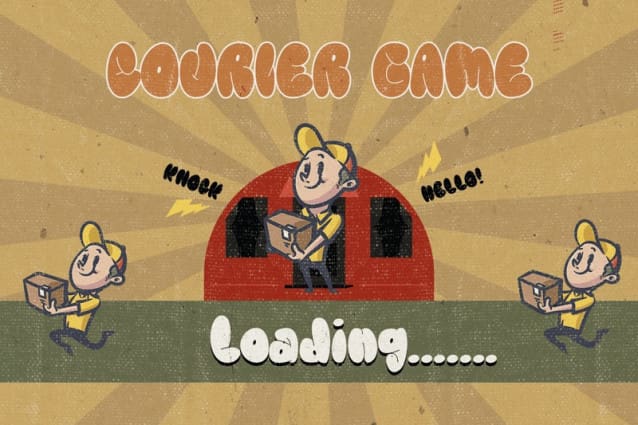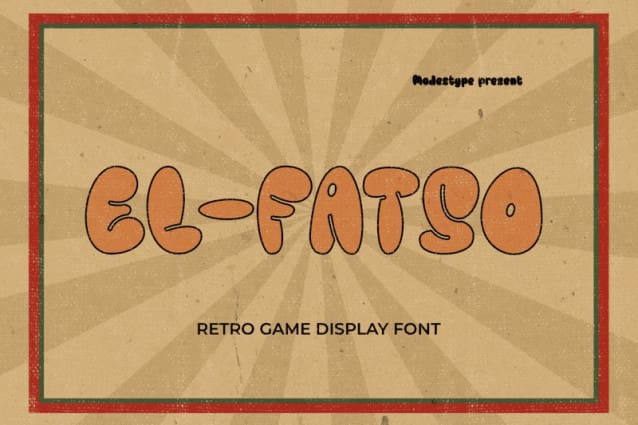
El Fatso Font
El Fatso Font – Retro Game Display Font. If you’re looking for a font that combines retro style with a modern twist, it is the perfect choice. This Sans Serif Font has a playful, cartoon-like feel that is sure to add a touch of whimsy to any project.
Whether you’re creating graphics for Instagram or YouTube, designing a book cover, or even developing a new video game, it is the ultimate display font. Its bold, bubbly letters are easy to read and will grab the attention of viewers.
This Funny Font is also a great choice for those looking to create a Kids Font for their children’s books or educational materials. Its friendly design and easy-to-read letters make it a great choice for young readers.
But EL FATSO isn’t just for kids – it’s also a great choice for those in the movie industry. Its retro feel is perfect for creating movie posters and title sequences, while its modern design ensures that it stands out from the crowd.
And if you’re a gamer, EL FATSO is the ultimate Gaming Font. Its playful, cartoon-like feel is perfect for adding a touch of fun to your game titles, and its bold, easy-to-read letters make it ideal for in-game messaging.